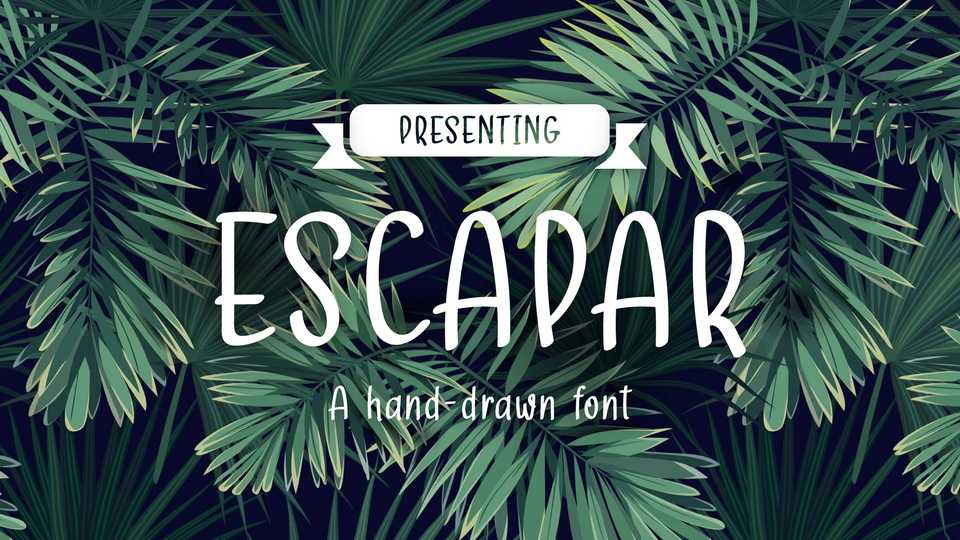
Download Escapar font, a captivating hand crafted typeface which can impress your audience breaking the stereotypes. Escapar font is designed very carefully to be simple and attractive.